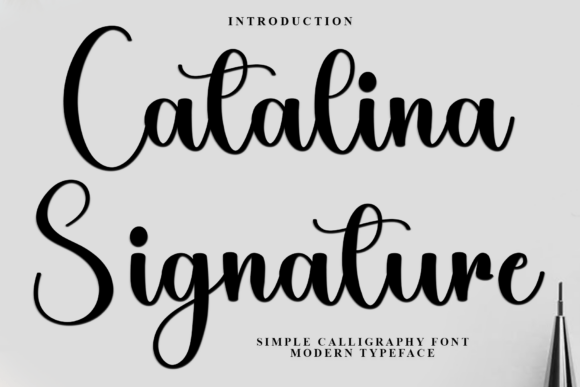
The Elusive Perfect Font: My Encounter with Catalina Signature
I’ll never forget the time I was working on a wedding invitation project, and my client asked for a font that was “elegant, yet playful; sophisticated, yet personal.” I scoured the internet, tried countless fonts, but nothing seemed to fit the bill. That was until I stumbled upon Catalina Signature, a modern calligraphy font that instantly caught my eye. With its fluid strokes and charming personality, it was love at first sight! 💕
An Honest Review of Catalina Signature
• 💫 Elegant and fluid design that’s perfect for branding, wedding invitations, and social media posts
• ✅ Exceptional readability, even at small font sizes
• 🎨 Highly versatile and adaptable to various design contexts, from logos to product packaging
• 💖 A beautiful, handcrafted feel that adds a personal touch to any design
While Catalina Signature is an amazing font, it’s not without its quirks. For instance:
• 🤔 Some users might find the font a bit too script-heavy for certain design applications
• ⚠️ It may not be the best choice for body text or lengthy paragraphs, as it’s optimized for titles and headings
The Story Behind Catalina Signature
Catalina Signature was crafted with care by a talented type designer who sought to create a font that balanced traditional calligraphy with modern sensibilities. Inspired by the flowing scripts of the past, the designer aimed to create a font that felt both elegant and approachable. The result is a font that exudes charm and sophistication, perfect for designers and crafters looking to add a touch of personality to their work.
Q: What makes Catalina Signature unique?
A: Catalina Signature stands out for its elegant, fluid design and exceptional readability. Its handcrafted feel and versatility make it suitable for a wide range of design applications.
Q: Is Catalina Signature suitable for body text?
A: While Catalina Signature is an excellent font, it’s optimized for titles and headings. For body text, you may want to choose a font with better readability and flow.